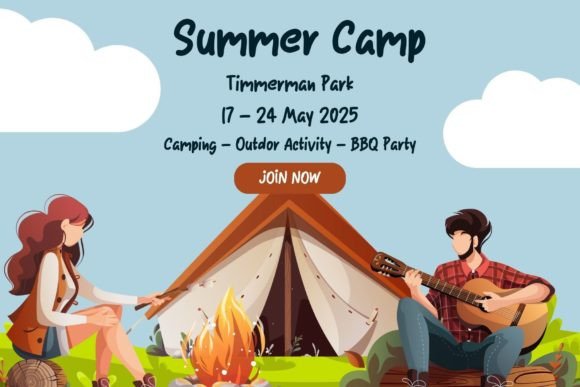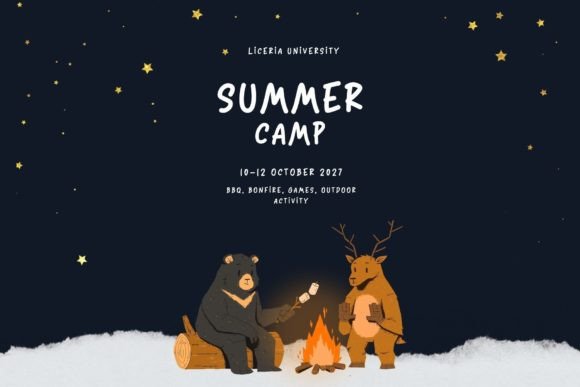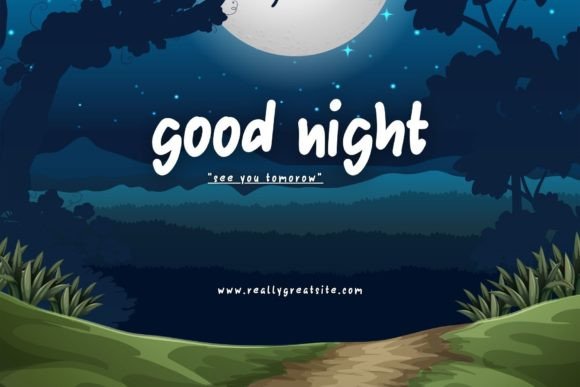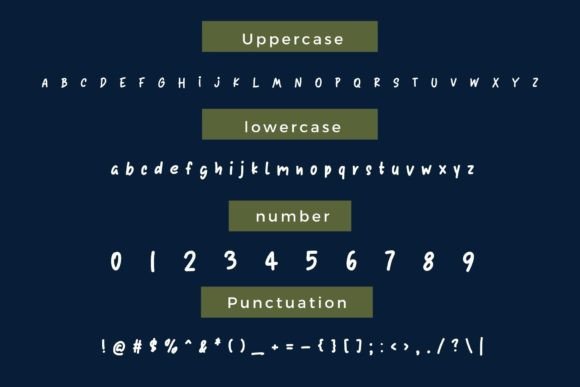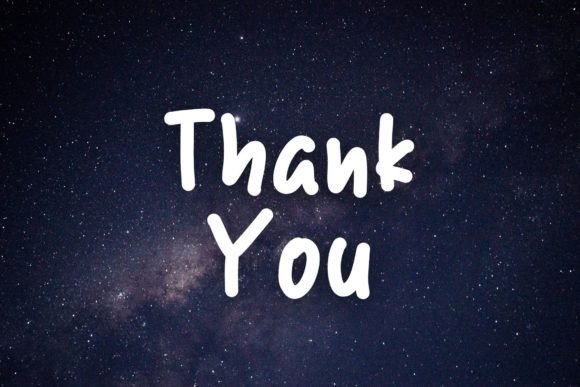
Introducing Fight Camp Font: The Perfect Handwritten Addition to Your Designs
Are you tired of using the same old fonts in your designs? Look no further than Fight Camp Font, a cute and playful handwritten font that’s perfect for adding a touch of personality to your projects. Whether you’re a designer, crafter, or DIY enthusiast, Fight Camp Font is the ideal choice for creating unique and eye-catching designs that stand out from the crowd.
What Makes Fight Camp Font So Special?
Fight Camp Font embodies playfulness and authenticity, making it the perfect fit for a wide range of projects, from blog posts and logos to branding, ads, invitations, greeting cards, planners, photo albums, decorations, and more. Its handwritten style gives it a warm and approachable feel that’s sure to resonate with your audience.
Endless Design Possibilities with Fight Camp Font
One of the best things about Fight Camp Font is its versatility. It can be used in a variety of design applications, including:
- Blog Posts: Add a personal touch to your blog posts with Fight Camp Font. Use it for headings, subheadings, or even entire paragraphs to create a more conversational tone.
- Logos and Branding: Create a unique and memorable logo for your business or brand with Fight Camp Font. Its playful style is sure to make your brand stand out.
- Ads and Marketing Materials: Use Fight Camp Font to create eye-catching ads and marketing materials that grab attention and drive results.
- Invitations and Greeting Cards: Add a personal touch to your invitations and greeting cards with Fight Camp Font. Its handwritten style makes it perfect for special occasions.
- Planners and Photo Albums: Create beautiful and functional planners and photo albums with Fight Camp Font. Its playful style is sure to make your designs more engaging.
- Decorations: Use Fight Camp Font to create beautiful and unique decorations for your home or office. From wall art to DIY projects, the possibilities are endless.
Why Choose Fight Camp Font?
So why choose Fight Camp Font over other fonts? Here are just a few reasons:
- Unique and Playful Style: Fight Camp Font has a unique and playful style that’s sure to make your designs stand out.
- Easy to Read: Despite its playful style, Fight Camp Font is easy to read, making it perfect for body text and other applications where readability is key.
- Versatile: Fight Camp Font can be used in a wide range of design applications, from digital designs to print materials.
- Authentic: Fight Camp Font has an authentic, handwritten feel that’s sure to resonate with your audience.